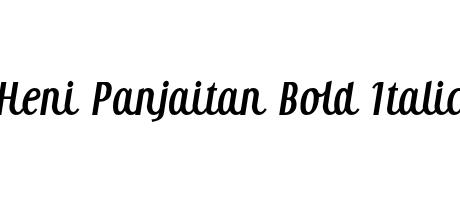
Heni Panjaitan Bold Italic
Heni Panjaitan Bold Italic: A font whispering secrets in a confident, elegant cursive. Its bold strokes and italic slant evoke a sense of stylish urgency, perfect for headlines that demand attention yet maintain a touch of playful sophistication. It’s a font that moves, a font that captivates.